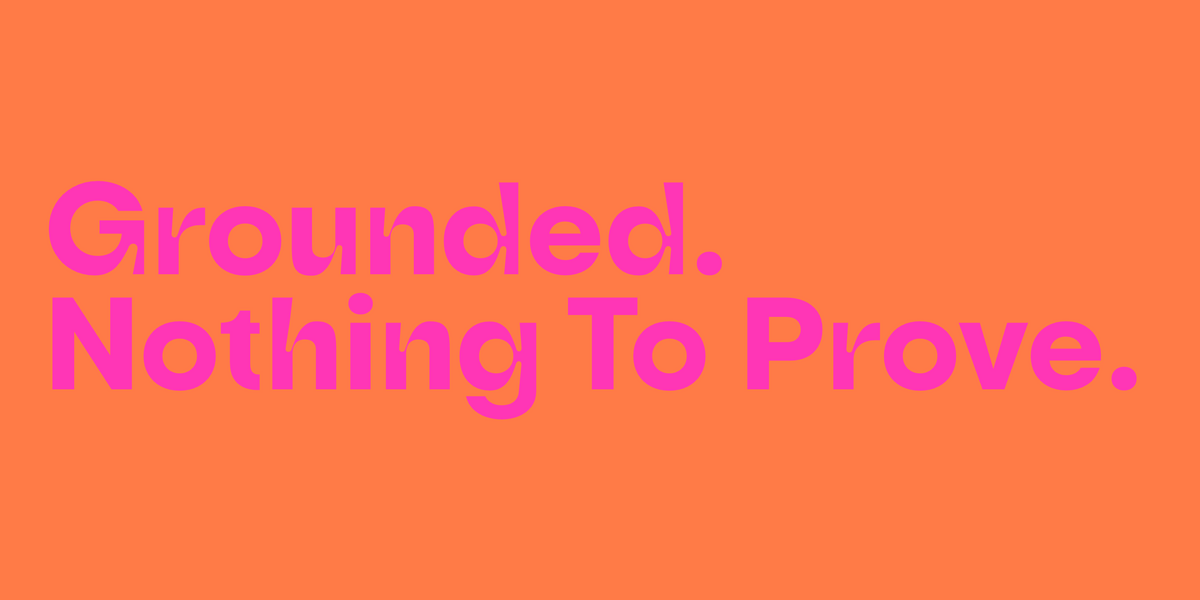
Spiritual Fonts for Wellness and Mindful Branding
Spiritual branding has a particular type register: not religious in the institutional sense, but calm, considered, and human. Wellness brands, yoga studios, meditation apps, mindful lifestyle product lines. The fonts that work share a few traits: softness without being saccharine, hand-touched quality without being illustrative, and proportions that breathe rather than crowd. These six Mojomox fonts hit that register.
1. Skay
Handwritten bubble font with brush-ink character. The handmade quality reads warm and human, working for wellness brands that want personality without preciousness.
2. Cesty
Friendly rounded display font. The soft proportions and warm corners suit yoga studios, meditation apps, and mindful product brands.
3. Mod
Modern serif with elegant proportions. The quiet sophistication works for upscale wellness brands and considered lifestyle publications.
4. Lace Rounded
Handwritten line font with playful organic character. The single-stroke construction reads intimate and human, fitting for journal-style wellness branding.
5. Bauhaus Soft
Organic bold serif. The warmth and considered proportions suit premium wellness brands, beauty lines, and meditation-adjacent product work.
6. Goji
Playful rounded sans-serif. The warm, readable shapes work for wellness brands that want approachability across body text and small UI labels.
Pairing spiritual type
The strongest spiritual identities pair a hand-touched display font (Skay, Lace Rounded) with a quiet serif or sans-serif for body text (Mod, Auria Sans, Vole). Avoid forcing the type to do too much. The spiritual register works through restraint and breathing room, not through decorative effort.